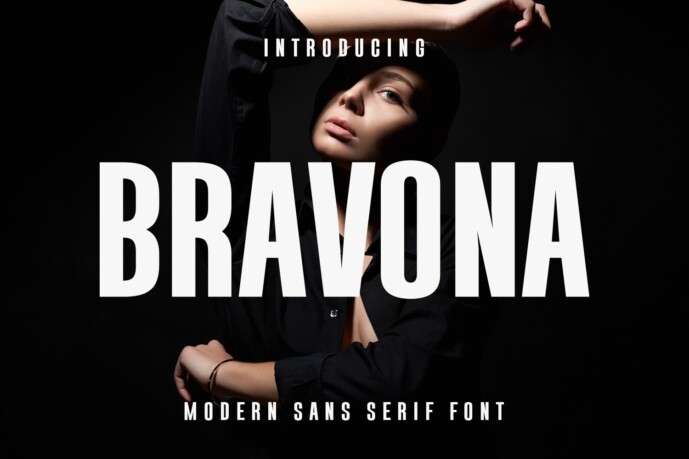
Bravona Font
Designer: Damai (7NTypes)
Immerse in the dynamic personality of Bravona Bold Font — a striking blend of minimalist elegance and contemporary design. Crafted with a sharp visual impact in mind, this modern typeface stands out as a beacon of high contrast and bold aesthetics. As a Sans Serif font, it offers a clean, sleek look that exudes urban style, fitting perfectly in the black and white aesthetic space.
Bravona Bold Font, with its strong typeface and high-contrast, is exceptionally tailored for headline purposes, making powerful statements that command attention. In fashion and magazine typography, the font captures an air of luxury, offering an editorial affinity that reflects a stylish, professional edge. Its simplicity is its strength; it delivers an effortlessly chic vibe that fits seamlessly into graphic design and print design spaces.